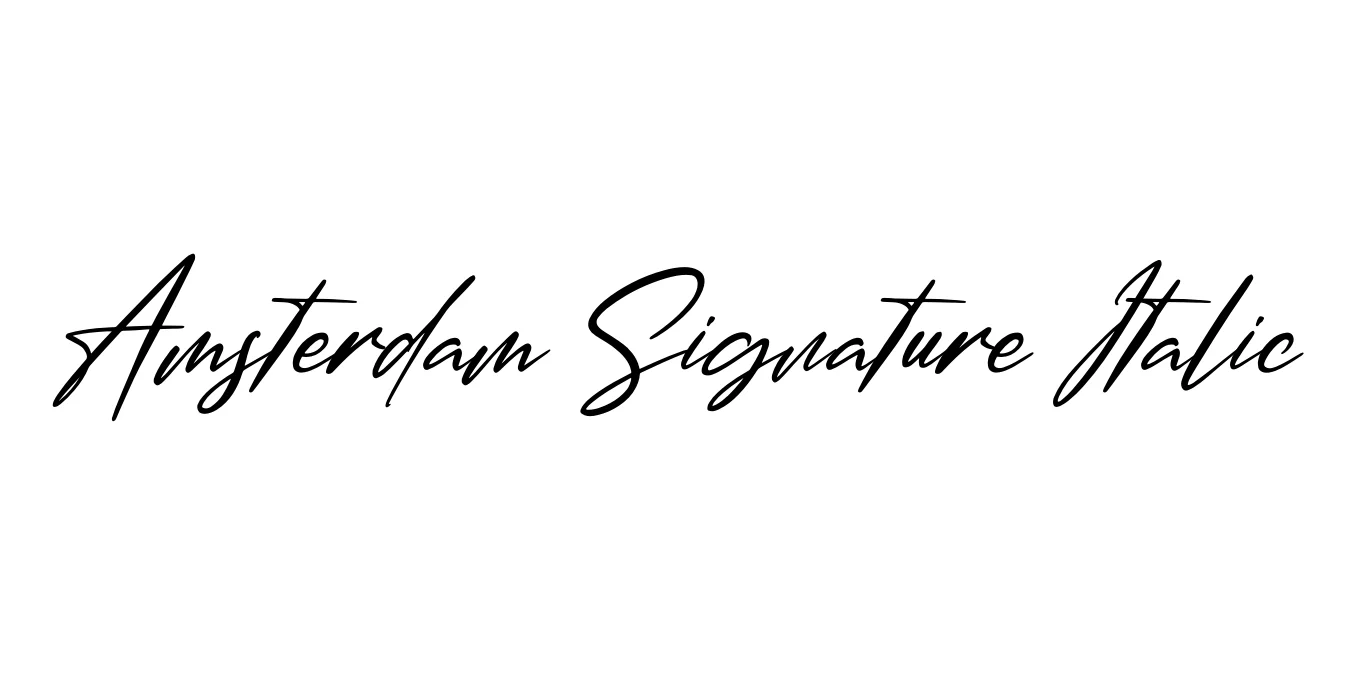
Amsterdam Signature Italic
Designed by Lettersiro Studio
| Font Name | Amsterdam Signature |
| Category | Script / Signature |
| Designer | Lettersiro Studio |
| Similar Fonts | Brittany Signature, Amsterdam One, Autograph Script, The Signature |
Amsterdam Signature Italic is a sophisticated and elegant script font designed to emulate the natural, fluid motion of professional handwriting. It features sweeping ligatures and a distinct variation in stroke weight that provides an authentic, high-end calligraphic feel. This font family is part of the popular Amsterdam collection, known for its versatility in creating a bespoke and personal aesthetic for modern design projects.
Crafted by Lettersiro Studio, this typeface has become a favorite among graphic designers for luxury branding and editorial design. The italicized slant of this specific variant emphasizes movement and grace, making it particularly effective for projects that require a sense of exclusivity and handcrafted charm. Its timeless appeal ensures that it remains a go-to choice for designers looking to balance classic calligraphy with contemporary style.
Amsterdam Signature Italic Best Uses
Ideal for creating professional logos and luxury brand identities.
Perfect for adding a romantic and personal touch to invitations and menus.
Commonly used as a stylish watermark for professional photography portfolios.
Excellent for pull quotes and signature-style headings in magazines.